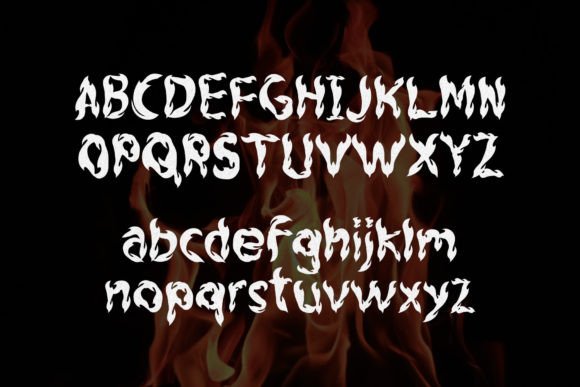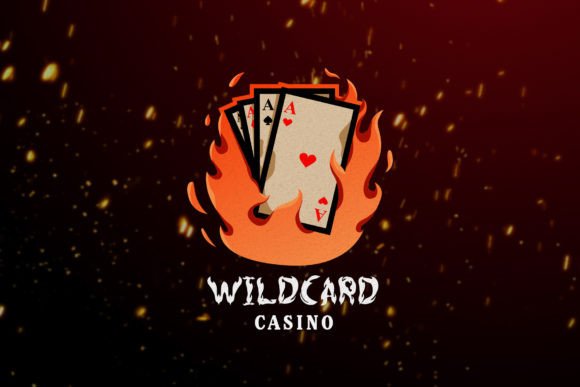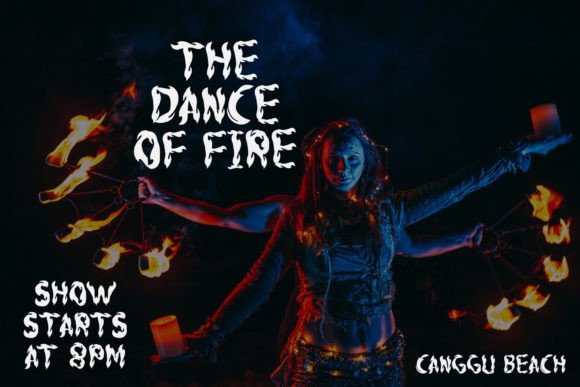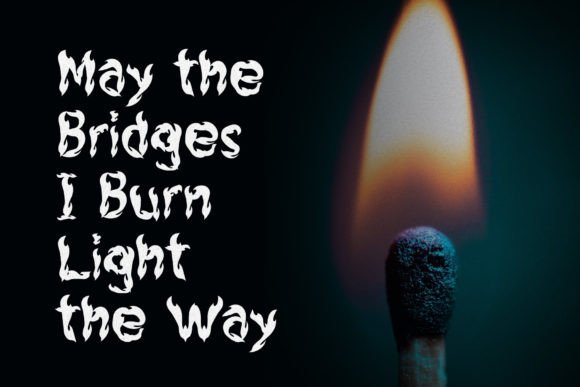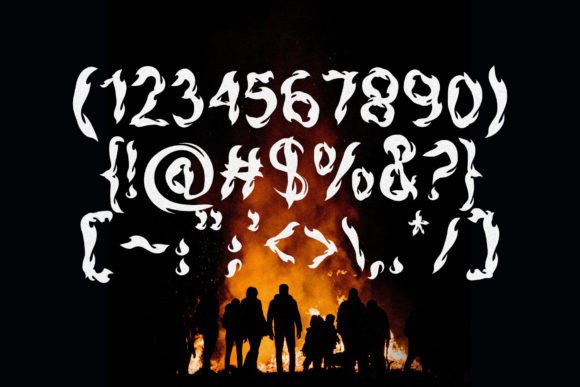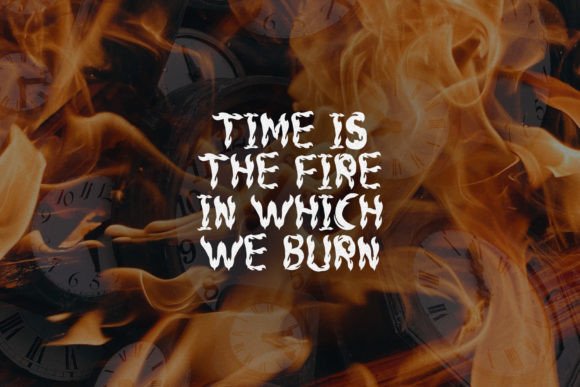
The Spark of Creativity: Unleashing the Power of Blazeberg Font
Have you ever been brainstorming a new design project, and suddenly, the perfect font strikes you like a bolt of lightning? That’s exactly what happened to us when we discovered the Blazeberg Font – a flame-inspired decorative typeface that ignites the imagination and sets the tone for any creative project.
Blazeberg Font is more than just a stylish typography; it’s a versatile tool for designers, suitable for a wide range of applications, from branding and banners to greeting cards and editorials. Its unique shape and curves ensure that it remains legible even in small sizes, making it a valuable asset for designers who need to convey their message effectively.
- Unique Characteristic: Blazeberg Font features a unique blend of modern and vintage elements, making it perfect for creating eye-catching headlines and titles.
Designer Review: Blazeberg Font
Blazeberg Font is an interesting addition to the world of sans-serif typography. ✨ Here are a few things that I think work well in this font:
- Unique flair: Blazeberg has a distinctive flair at the end of each stroke that gives it a quirky, handmade feel.
- High legibility: Despite its playful nature, Blazeberg remains highly legible, even at smaller font sizes.
- Consistency: The font’s weight system is well-executed, making it easy to use across different contexts.
- Lack of boldness: Blazeberg’s bold weight is somewhat inconsistent, with some letters feeling too light or too heavy.
- Limited language support: The font’s character set is not comprehensive, which may limit its use in certain languages or contexts.
- Not ideal for long blocks of text: Blazeberg’s playful nature makes it more suited for headings and short paragraphs, rather than large blocks of text.
Overall, Blazeberg Font is an innovative and visually interesting choice. While it may not be perfect, it’s a great option for designers looking to add some personality to their projects.
Getting the Most Out of Blazeberg Font
Here are some tips for getting the most out of the Blazeberg font:
- Use it to create bold and eye-catching headings.
- Pair it with other fonts to create a unique and stylish typography.
- Use it to add a touch of sophistication to your designs.
The Blazeberg font is perfect for:
- Designing brochures, flyers, and other marketing materials.
- Creating logos, icons, and branding materials.
- Designing web pages, social media graphics,
Alternatives to Blazeberg Font
Open Sans is a clean and modern sans-serif font designed for digital use. It’s suitable for body text and headings in various applications, including websites and mobile apps.
Open Sans is a more versatile and widely used font compared to Blazeberg Font. It’s available for free and has a larger character set, making it a popular choice among designers.
Montserrat is a geometric sans-serif font inspired by the urban environment of Buenos Aires. It’s ideal for headlines, titles, and other display typography.
Montserrat has a similar geometric feel to Blazeberg Font, but with a more refined and sophisticated look. It’s also a popular choice among designers due to its versatility and wide range of font weights.
Lato is a modern sans-serif font designed for use in digital products, including websites and mobile apps. It’s suitable for body text, headings, and other display typography.
Lato has a similar clean and minimalist feel to Blazeberg Font, but with a more rounded and friendly look. It’s also a popular choice among designers due to its wide range of font weights and languages supported.
Inter is a modern sans-serif font designed for digital use. It’s suitable for body text, headings, and other display typography.
Inter has a clean and neutral look, similar to Open Sans. It’s designed to be highly legible and works well in a variety of contexts, from digital products to print materials. It’s also a relatively new font, released by Google in 2021, making it a modern alternative to
What is the recommended font size for using Blazeberg?
The recommended font size for using Blazeberg depends on the intended use and the design context. As a general guideline, use font sizes between 12pt and 24pt for body text, and 36pt to 48pt for headings. You can adjust the font size according to your design requirements and ensure readability by testing the font at different sizes.